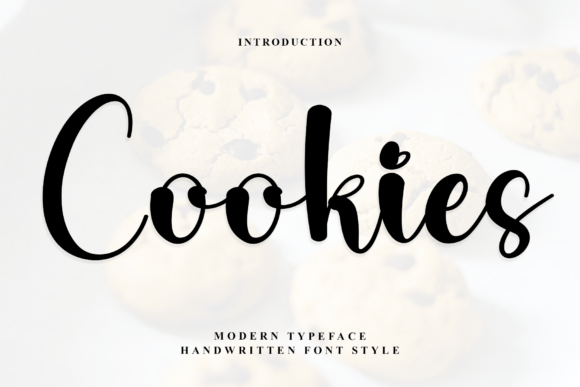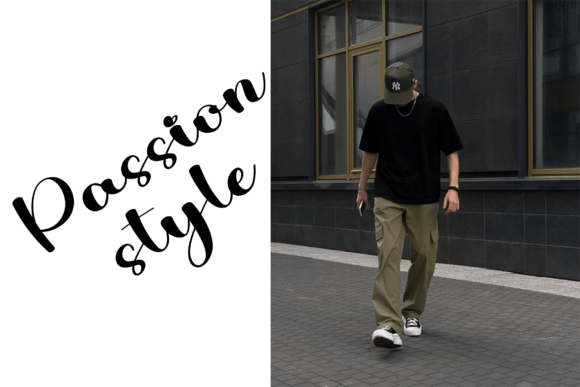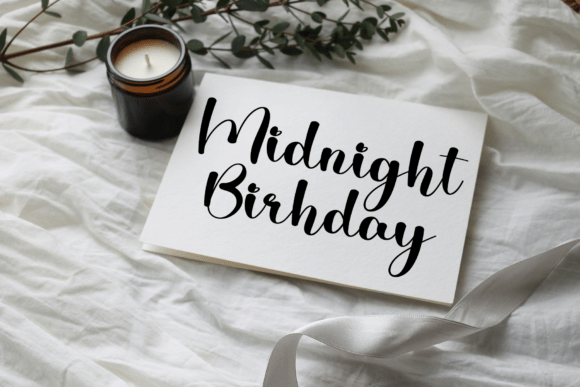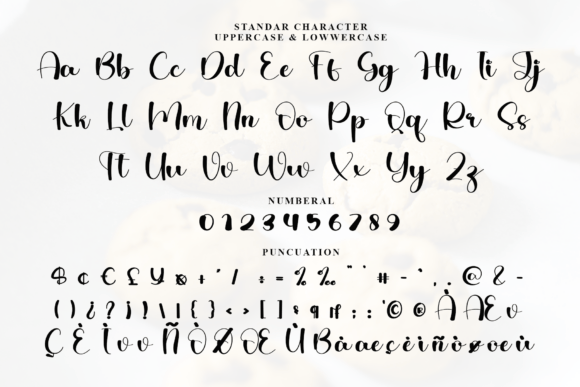
Cookies Font: Cute Handwritten Script for Wedding & Branding
About the Cookies Font
Welcome to the world of Cookies Font, a typeface that will inspire your next great project. Cookies is a sweet and cursive handwritten font. This gentle font will look gorgeous on a variety of design ideas. It will add a joyful and romantic touch to each of your projects! Perfectly fit for branding, logo, wedding things, greeting cards, fashion, lookbook, marketing promotion, and anytime you want your design to look fancy and elegant but still casual.
Cookies Font’s playful, yet elegant, personality makes it ideal for branding projects emphasizing a friendly and approachable aesthetic, particularly for businesses in the food, fashion, or beauty industries. It shines in headlines, short text blocks on invitations or packaging, and logos requiring a touch of handwritten charm. However, its cursive nature makes it unsuitable for body text or UI elements where readability is paramount.
For optimal visual balance, pair Cookies with a clean sans-serif like Open Sans for body text or a geometric sans-serif such as Montserrat for a modern contrast. A subtle serif like Lora can add a touch of classic elegance, while a script font with a bolder stroke might create a more dramatic effect, depending on the desired mood.
Consider the overall design goal. For a whimsical feel, incorporate playful illustrations. For a more sophisticated look, use a minimalist color palette and high-quality imagery. The key is to maintain a visual harmony that supports, rather than clashes with, Cookies’ inherent softness and romantic charm.
Cookies Font Usage Examples
Cookies Font Example